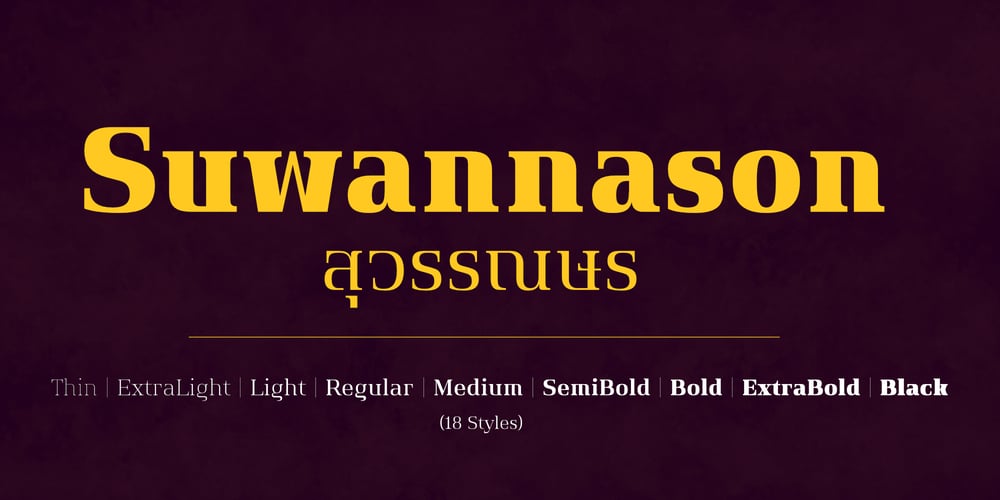
Suwannason Font Family was designed by Anupap Jaichumnan and published by Jipatype. Suwannason contains 18 styles and family package options. Suwannason is a distinctive serif typeface that embodies a strong defined serifs and firm structure. The design of the font is characterized by its hard, angular lines, which give it a bold and impactful appearance.